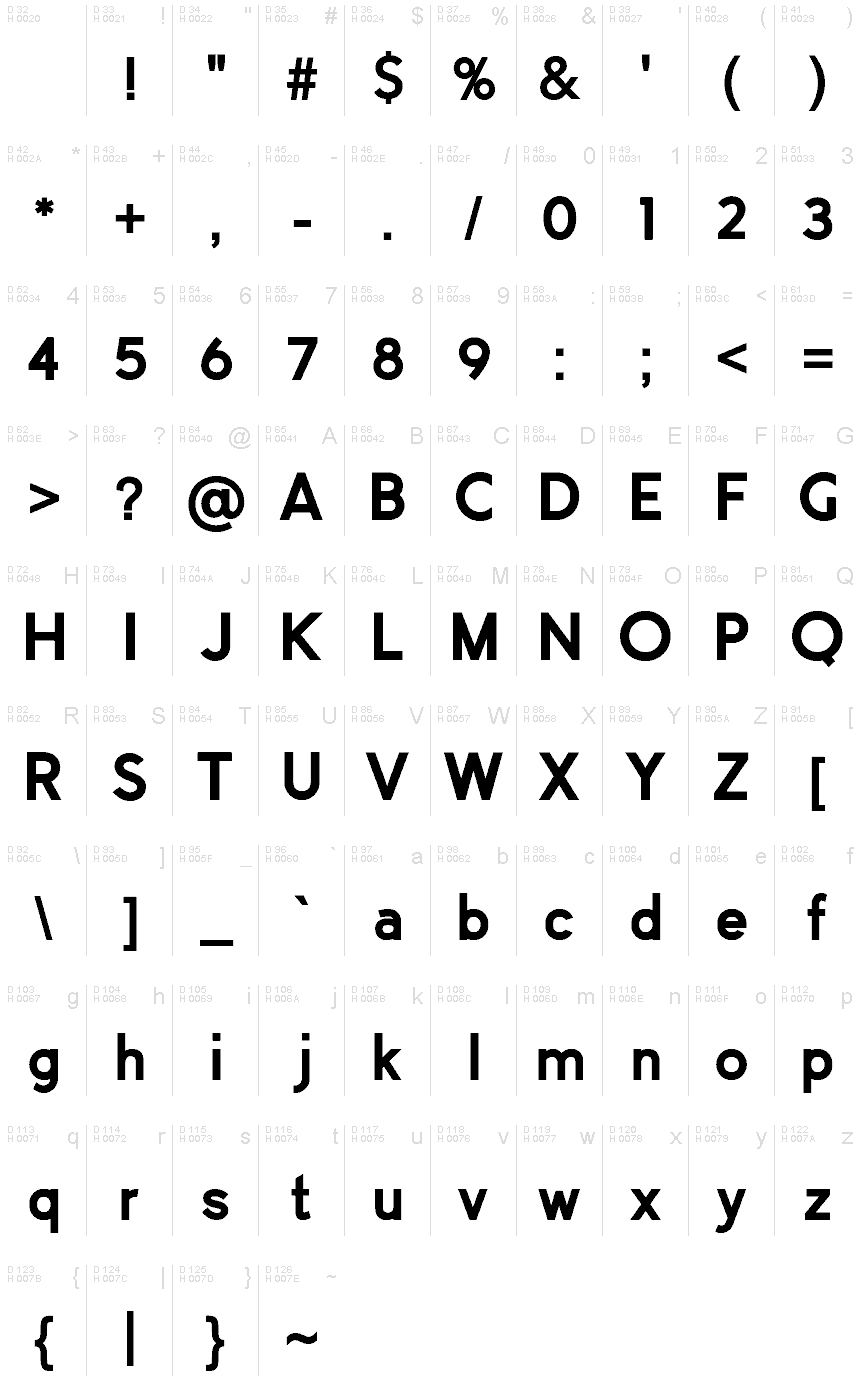
MANDISA Bold
Mandisa Bold font is a sans serif free font designed by UI Creative in a modern, geometric style with clean lines and an authoritative presence. Contemporary for many applications, the typeface features all letters and numbers whose appearance is clearly inspired by sonority and traditions in natural harmony. Stunning, elegant, and assertive, this is just the sort of project that designers will be eager to make use of.
Choose Mandisa for branding projects such as logo design in addition to advertising posts like banners or posters. Try it out on book covers or magazine headlines before inserting it into layouts within mobile apps or corporate websites. If you have a unique creation in mind from textile design (t-shirts) to product packaging designs (coffee bags), day-to-day use of this font should give its reader that decisive appearance that they’re looking for.